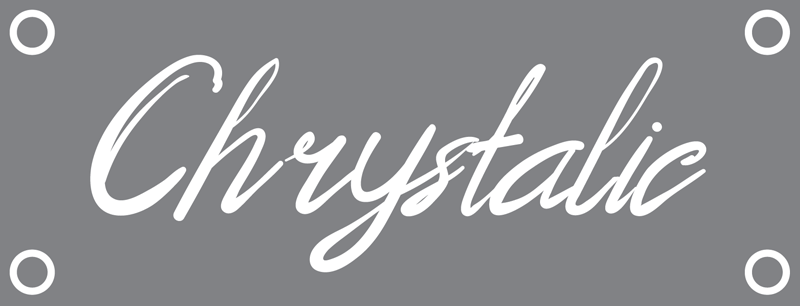
Preview and download Chrystalic Font. Created by frachmadi13 in Script Handwritten styles with Free for personal use license.
Chrystalic script, This font has a classic and italic style. It's beautiful and elegant. What's Included : Chrisyard TTF Works on PC & Mac Simple installations Accessible in the Adobe Illustrator, Adobe Photoshop, Adobe InDesign, even work on Microsoft Word. NOTE : This DEMO is for PERSONAL USE ONLY!! But any donation are very appreciated. Paypal account for donation : https://www.paypal.me/frachmadi13 If you need a full version, please contact me in fajarrachmadi13@gmail.com |